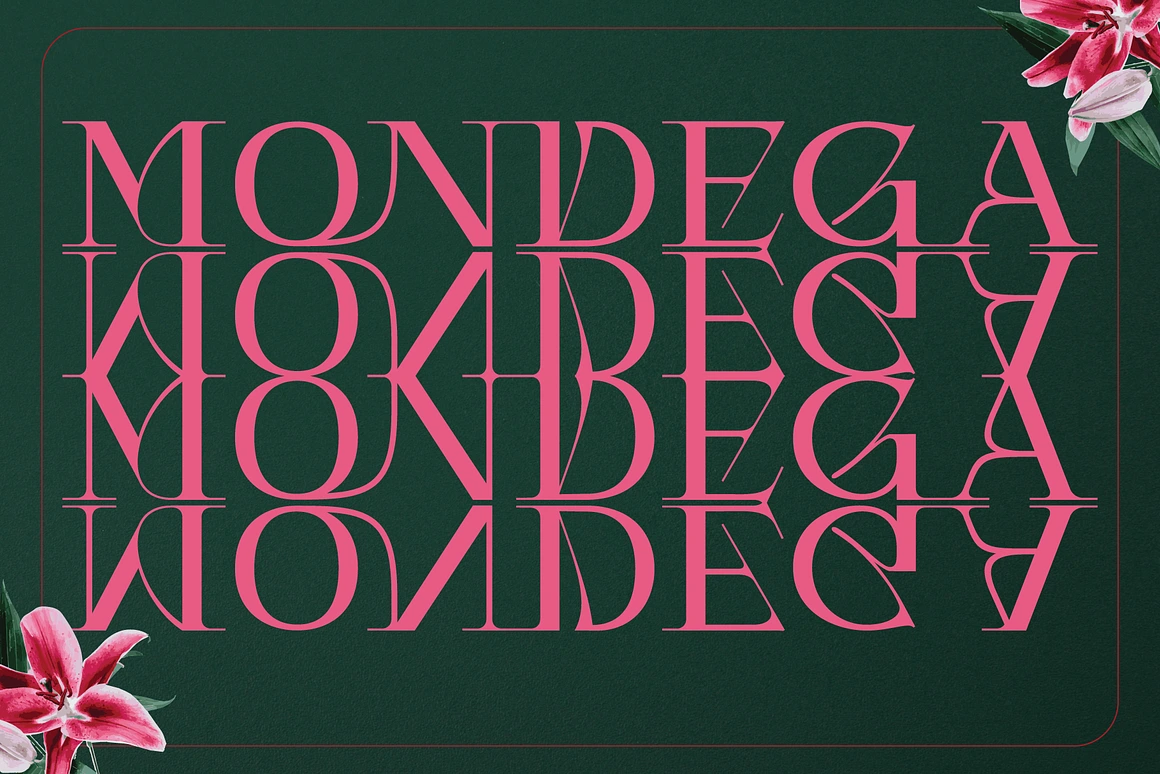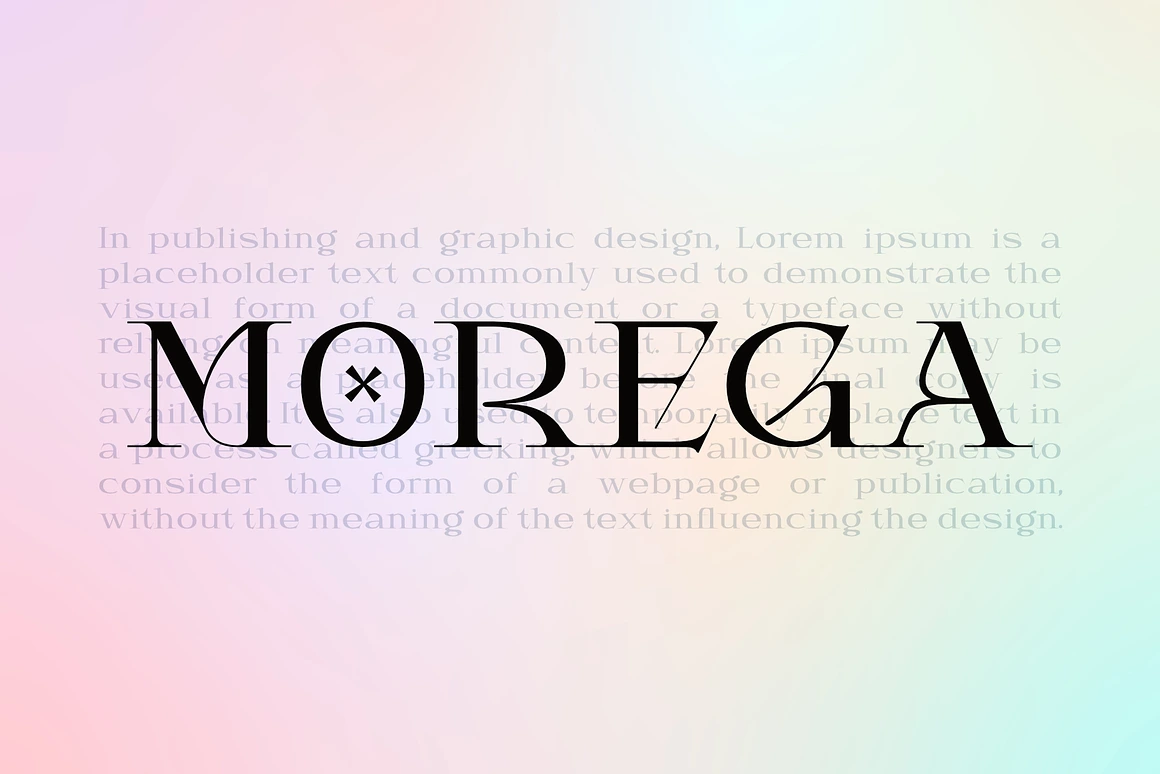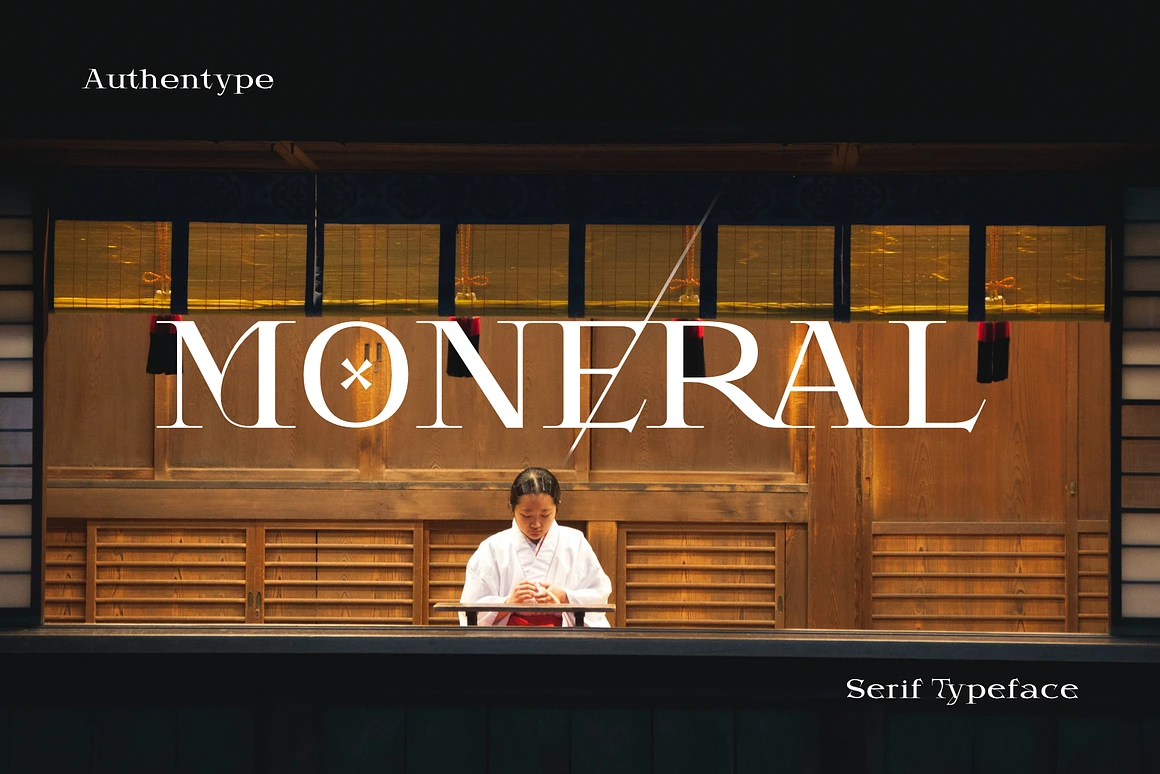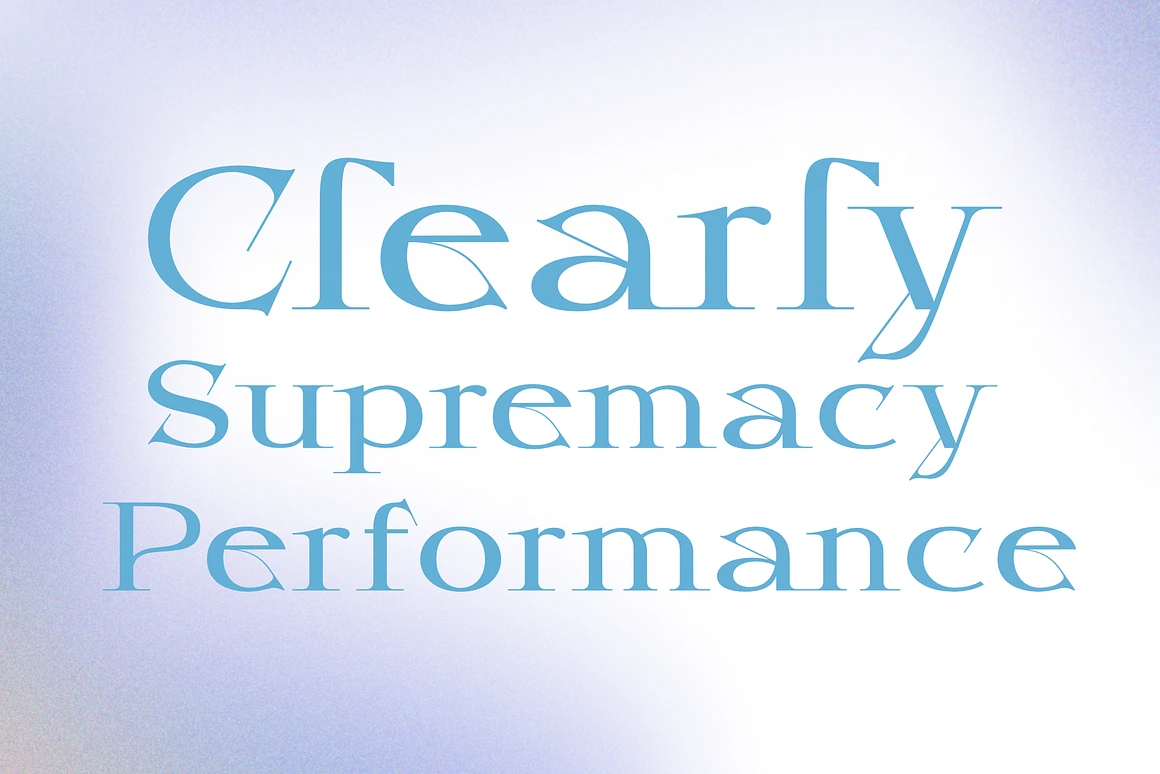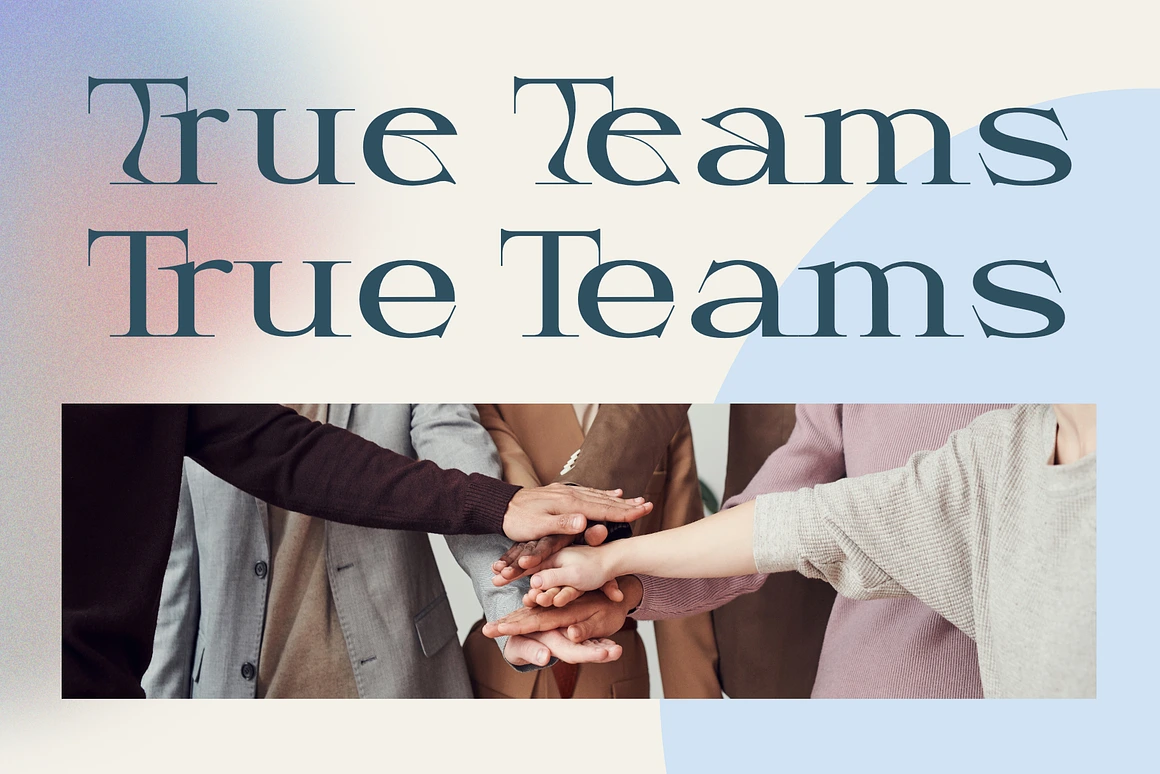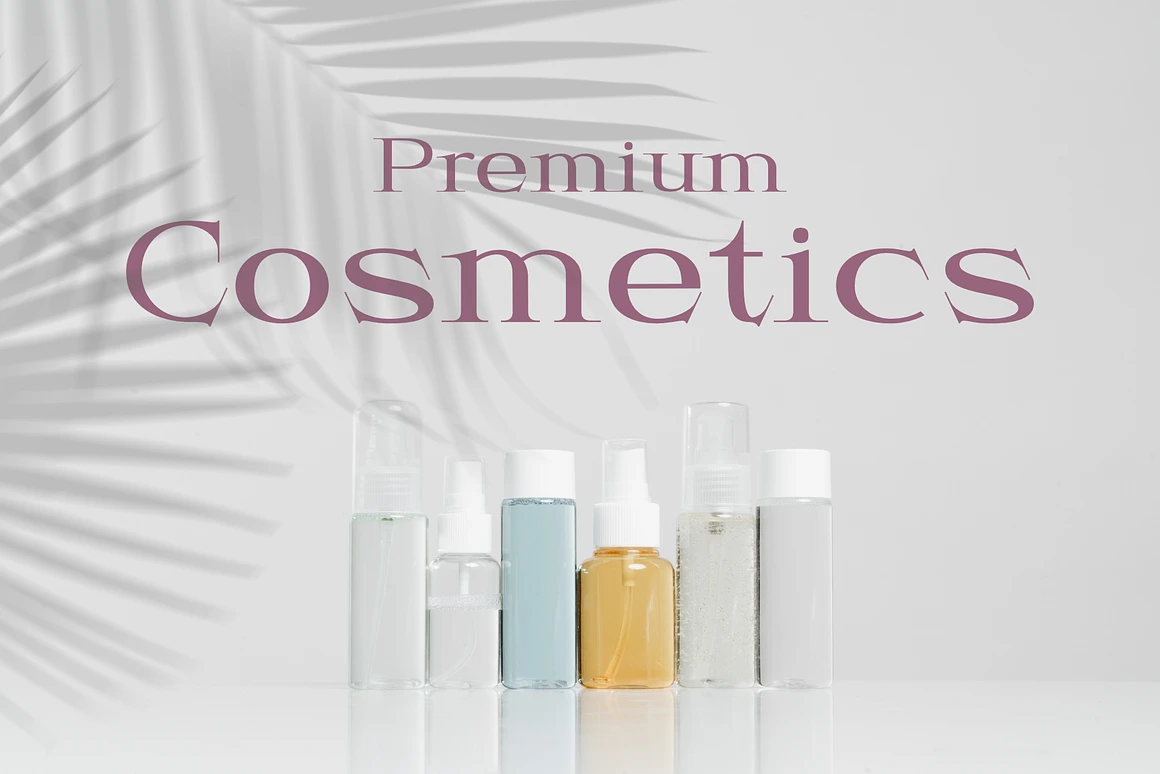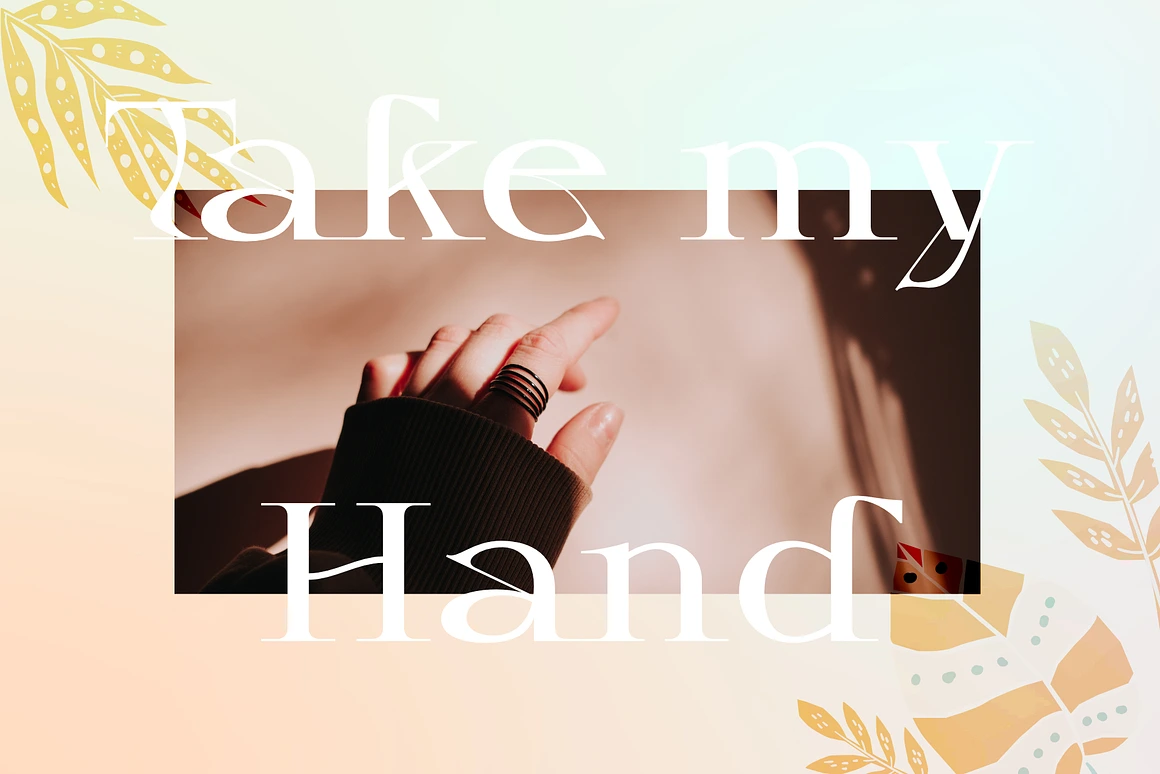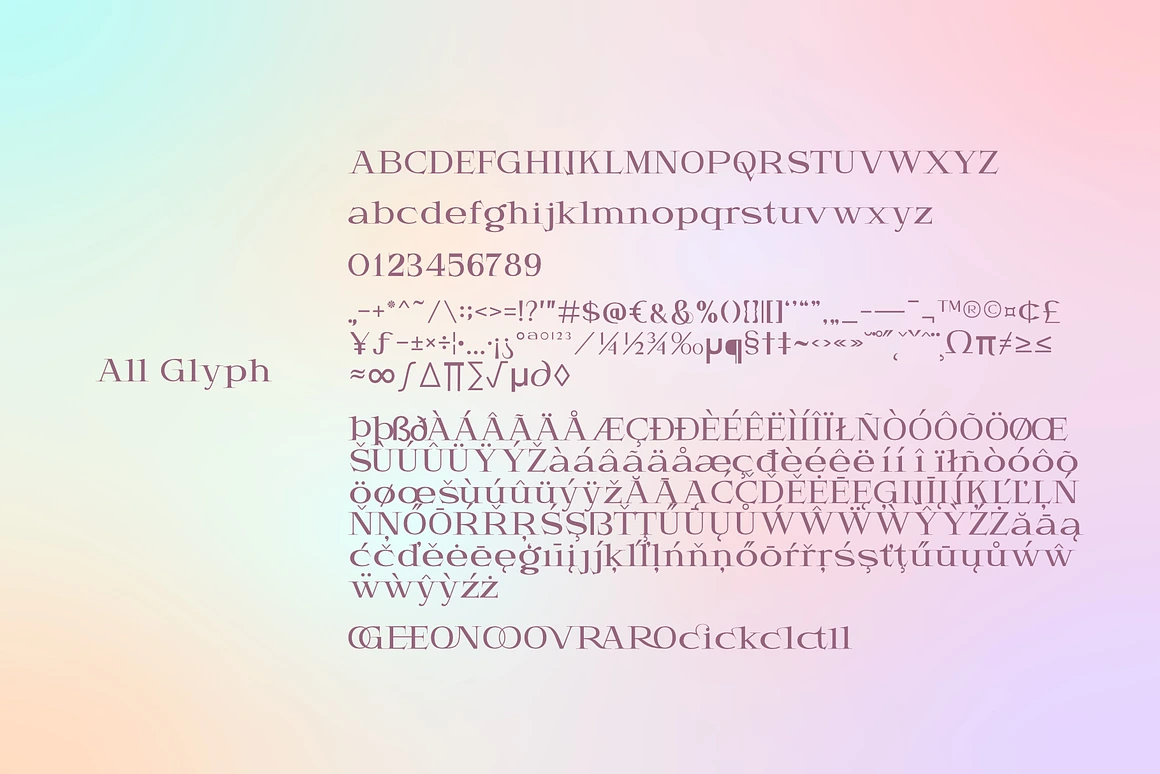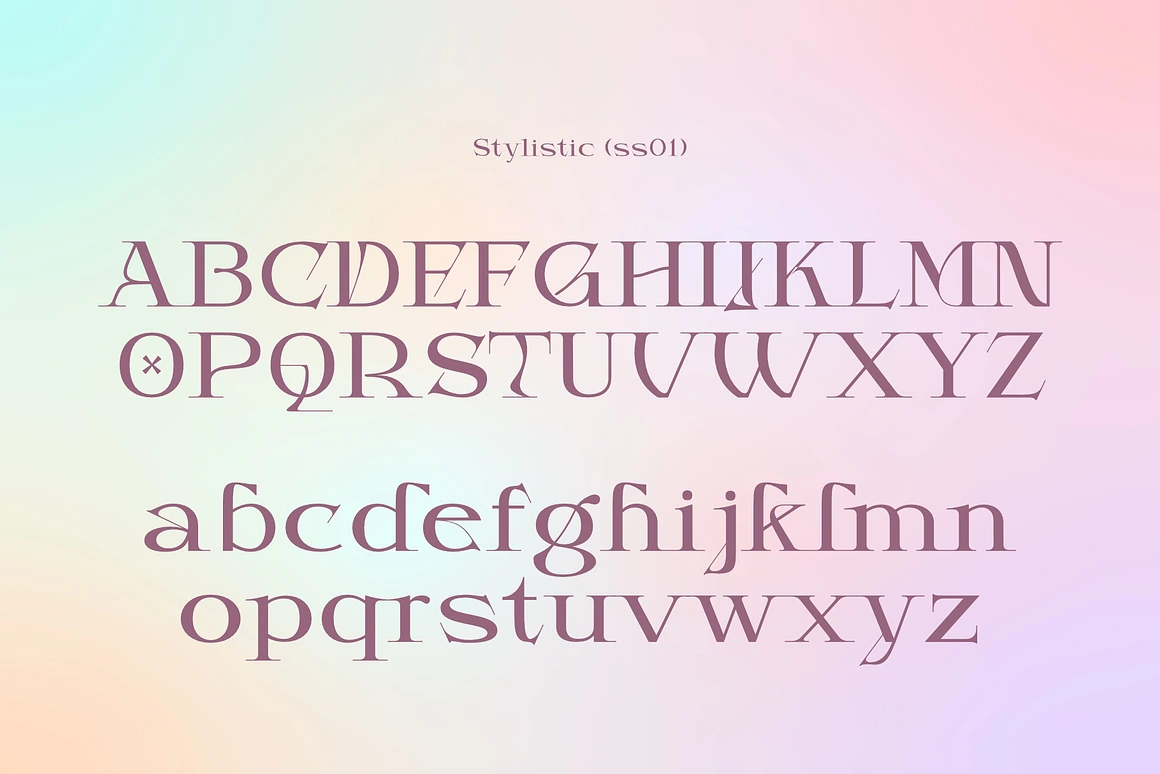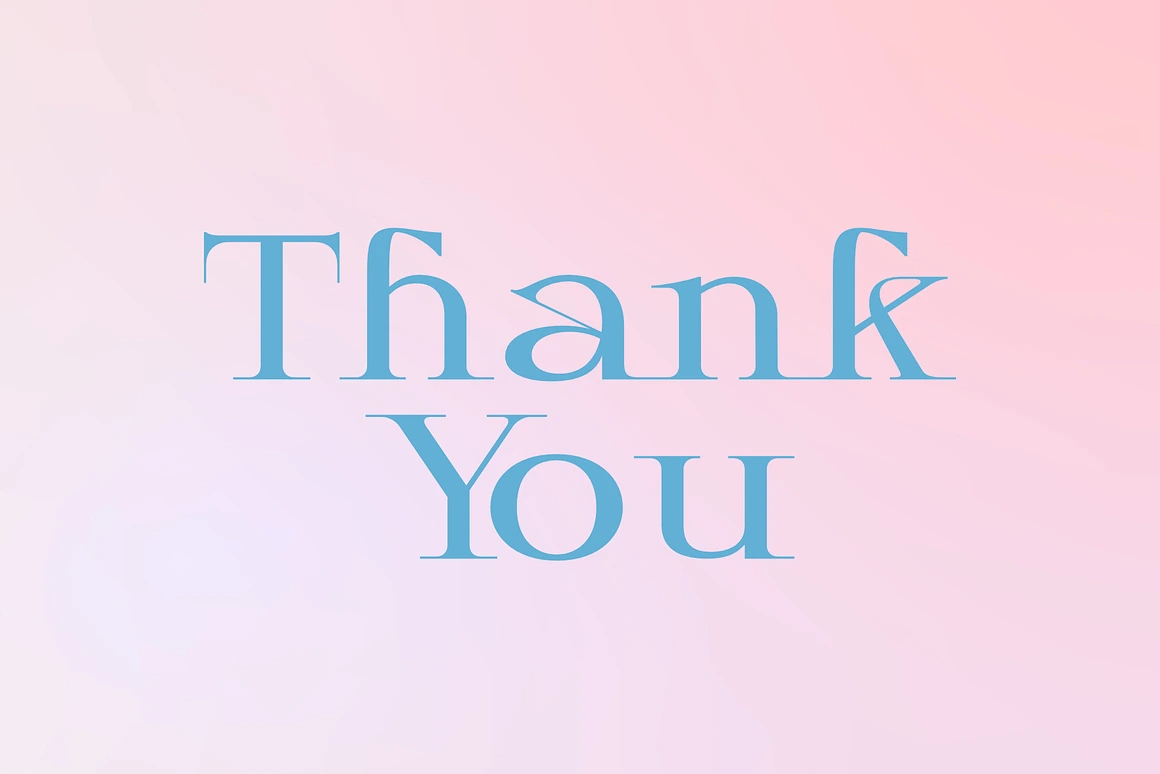
Mondega - Modern Serif Font
Mondega - Modern Serif Font with multi shapes and lines. There are two types of letters by activating stylistic alternates you will get a very contrasting feel than regular letters.
Mondega – Modern Serif Font with multi shapes and lines. There are two types of letters by activating stylistic alternates you will get a very contrasting feel than regular letters. It was also followed by the addition of swash, many ligatures, and many languages.
• Standard glyphs uppercase and lowercase letters
• Numerals, a large range of punctuation and ligatures.
• Stylistic Set
• Multilingual
• Fonts include multilingual support for; ä ö ü Ä Ö Ü ß ¿¡